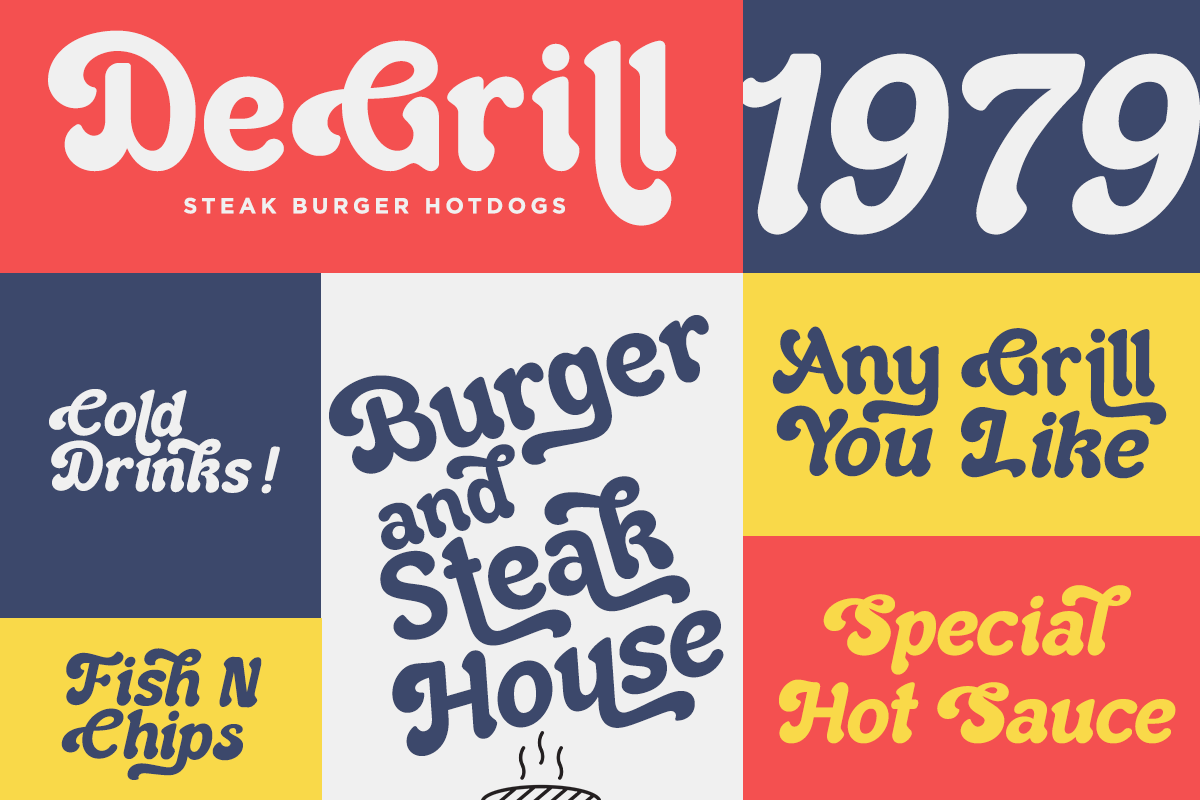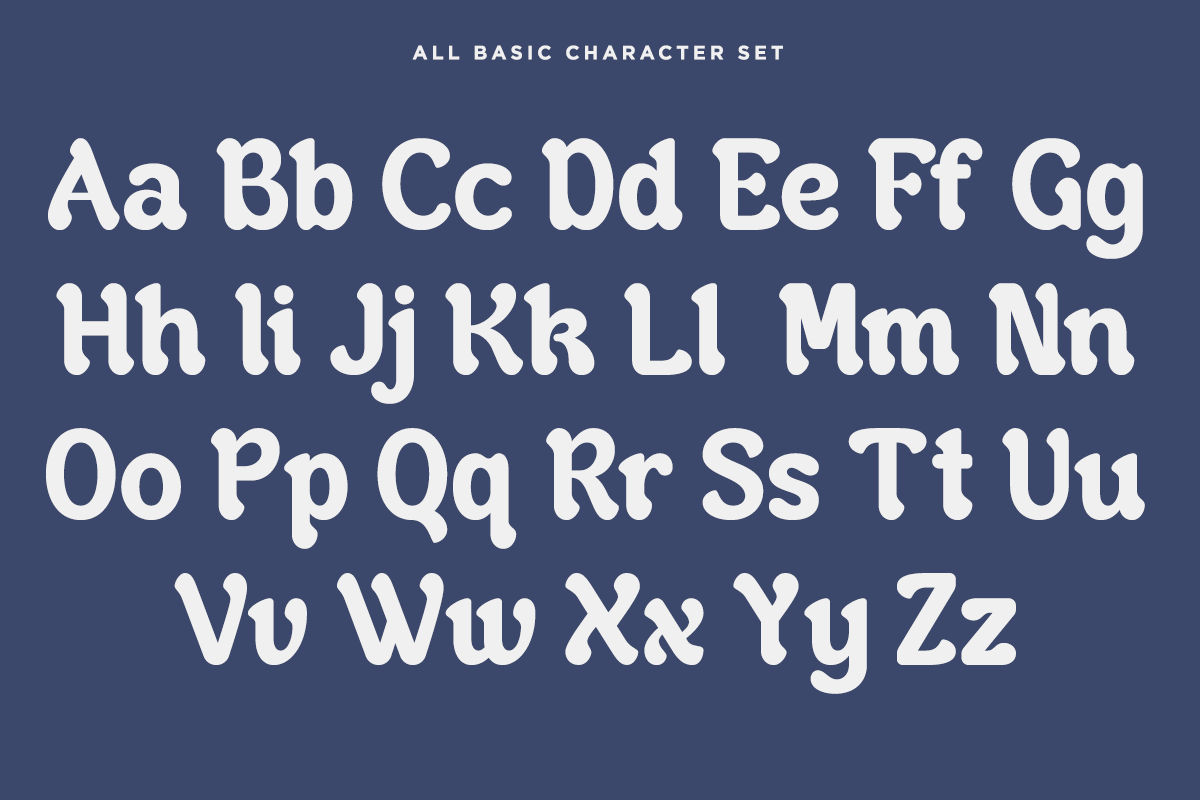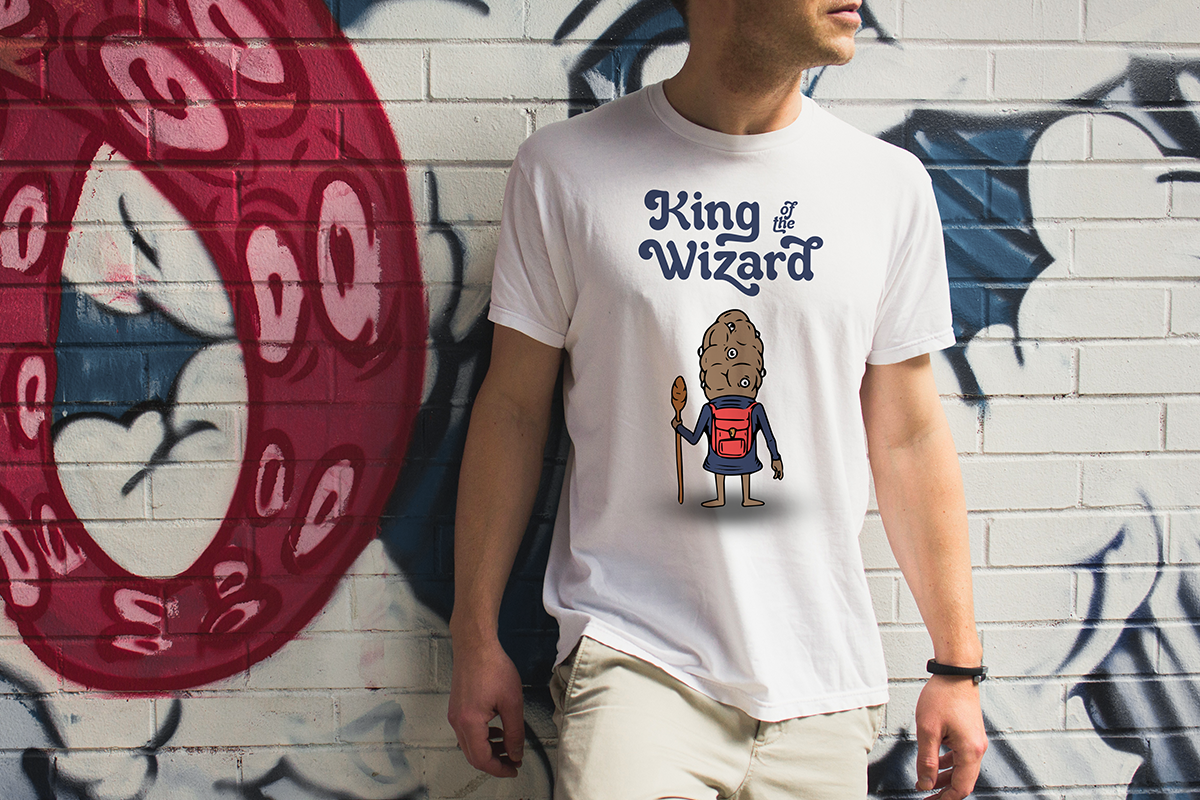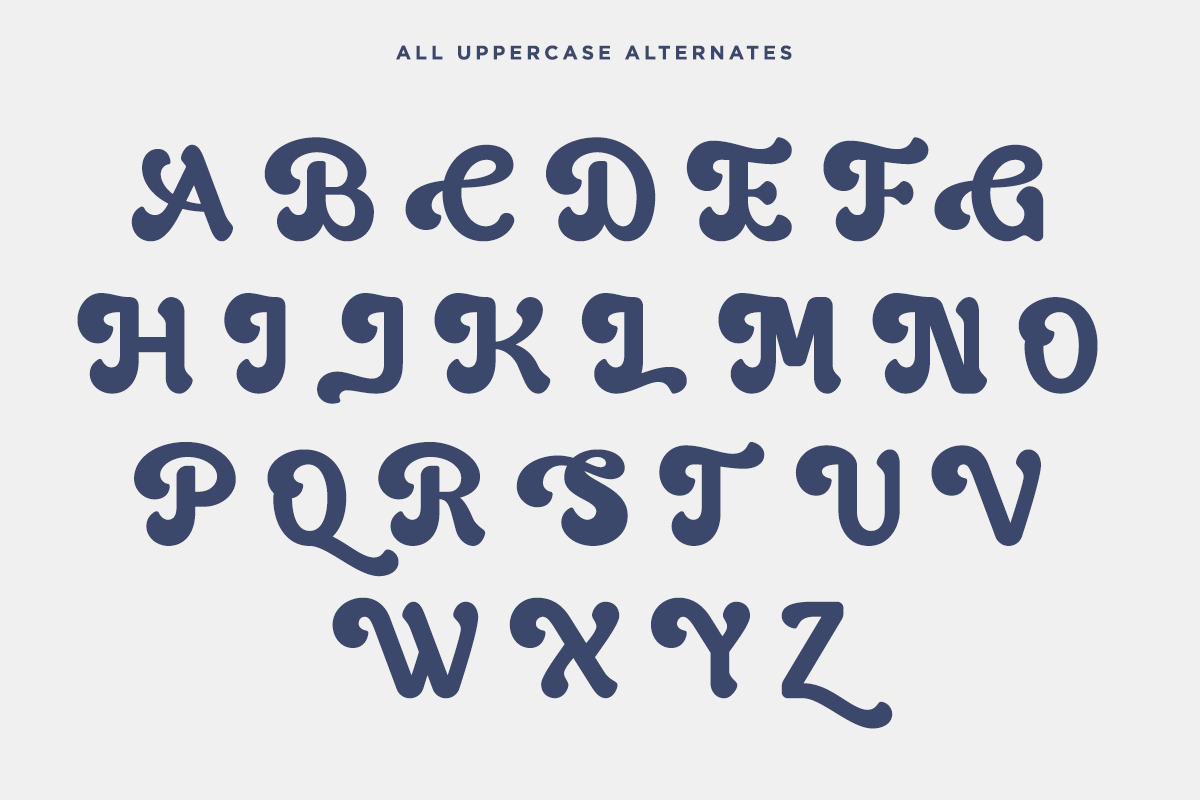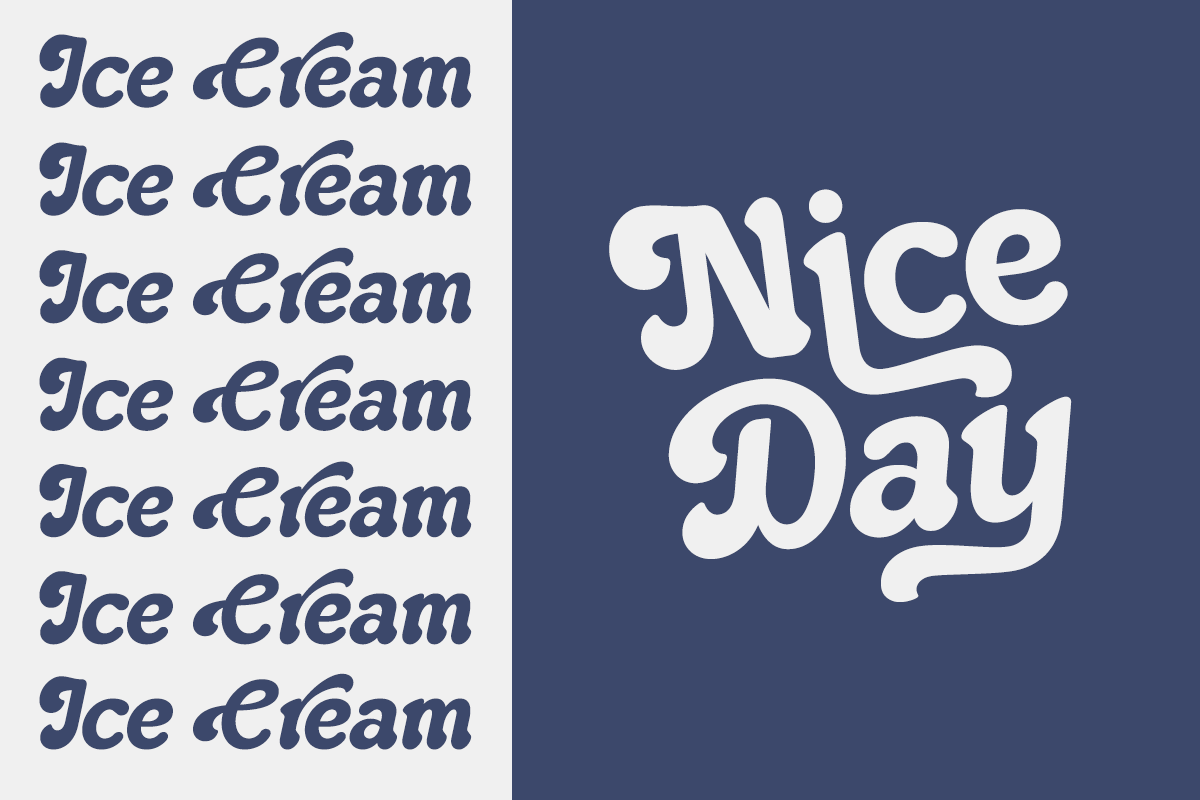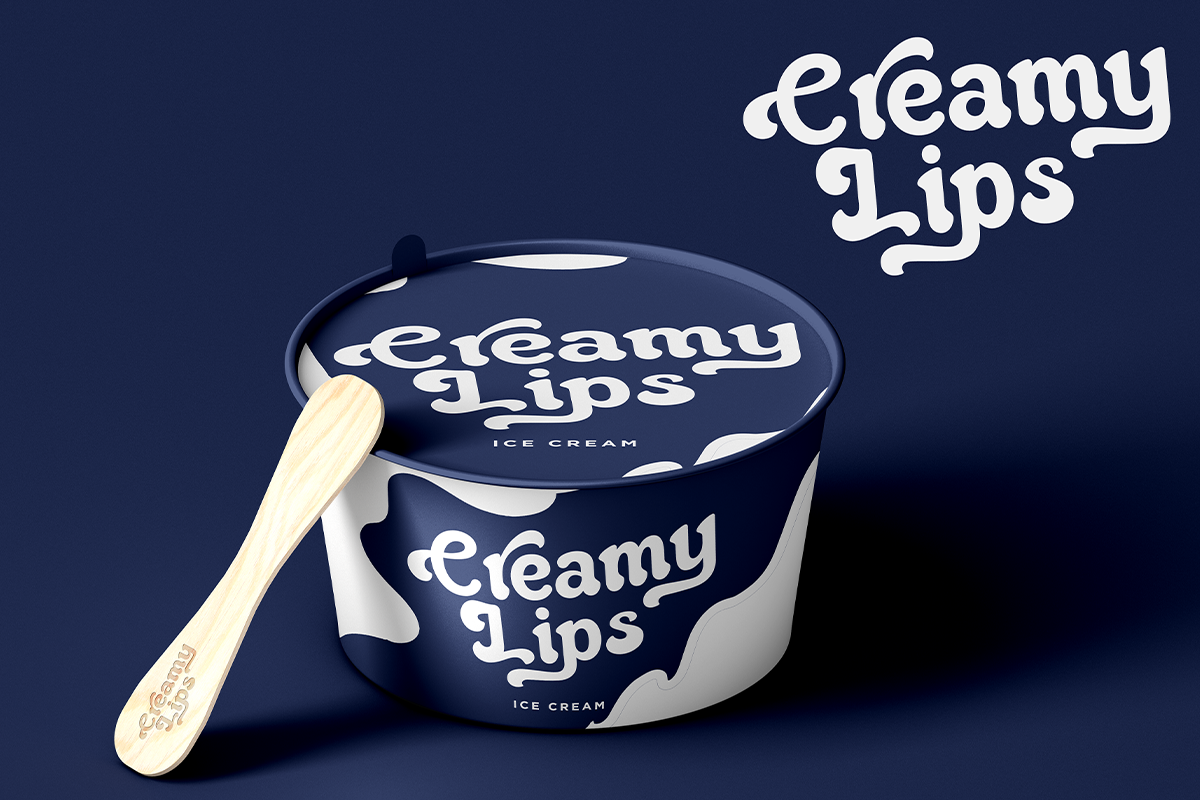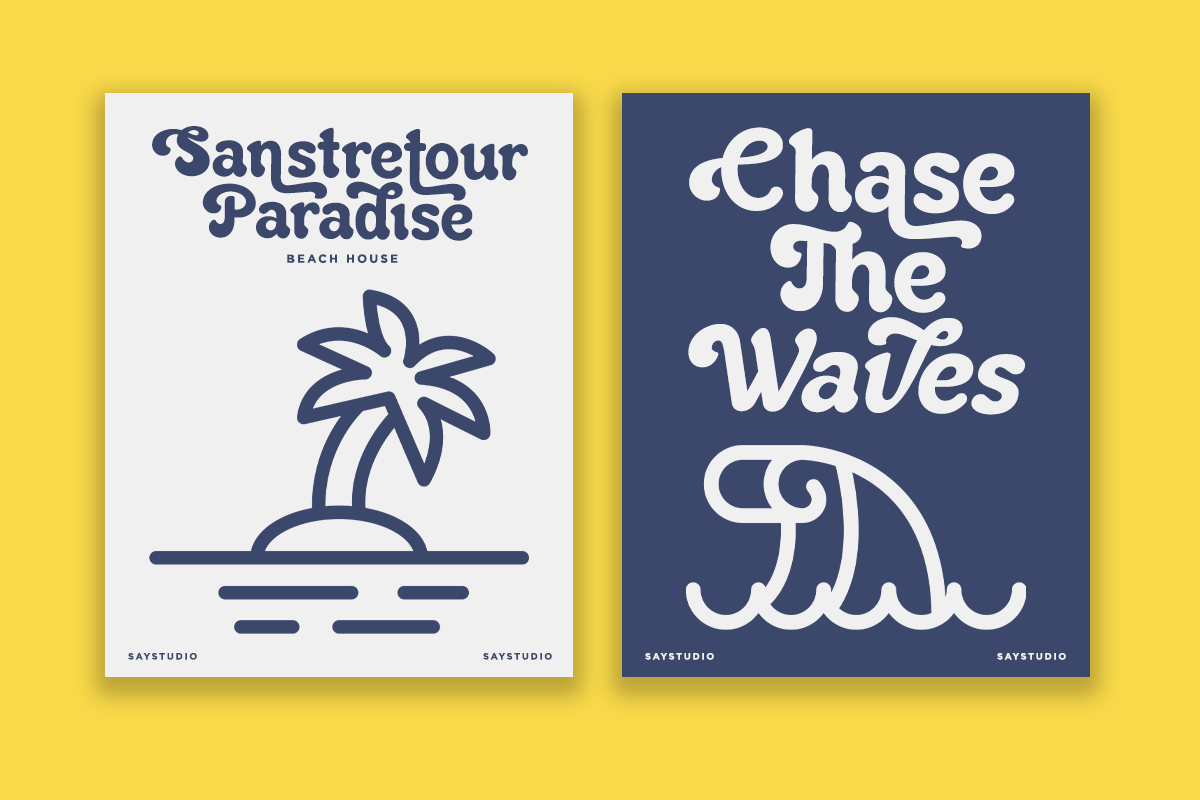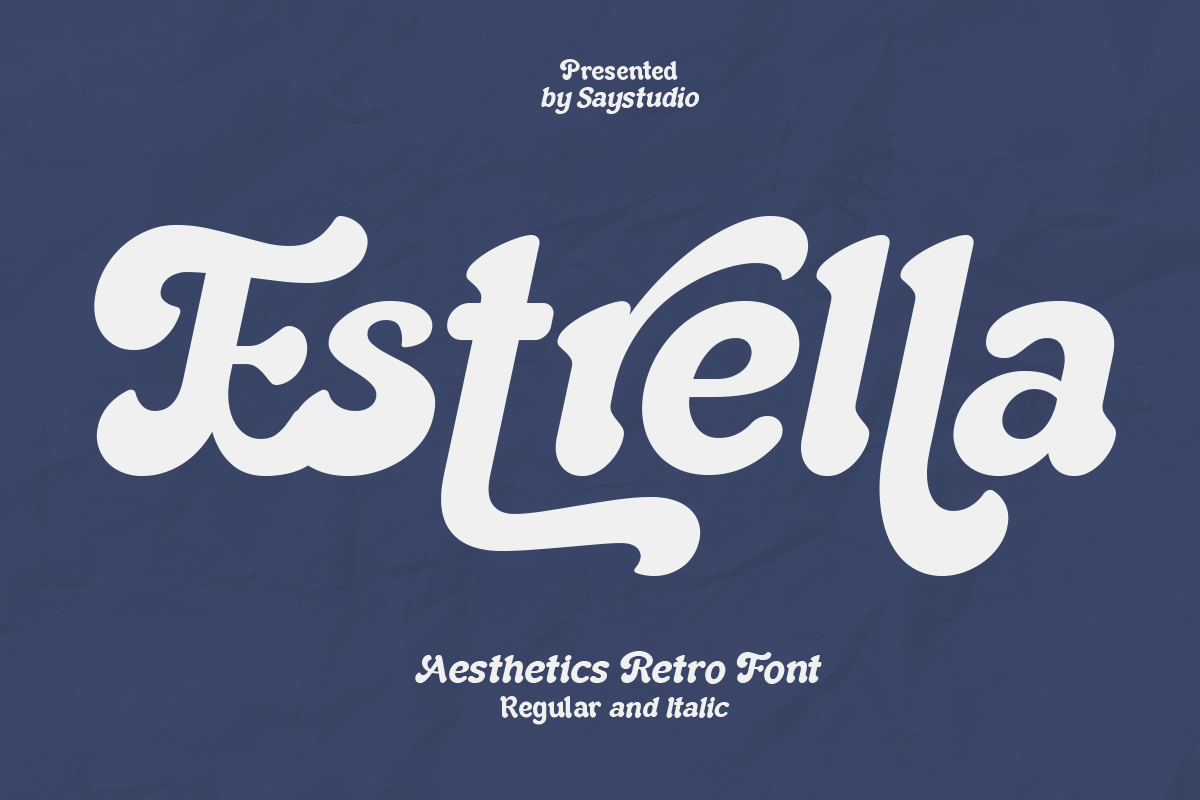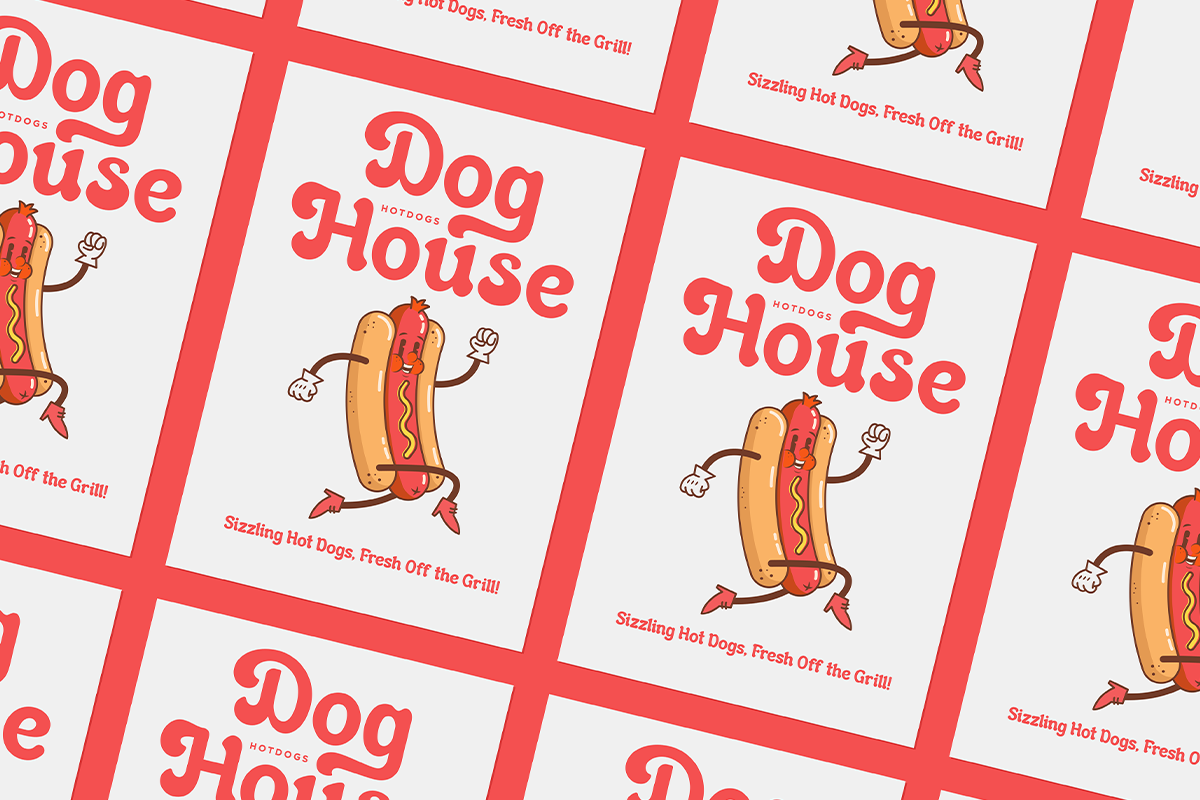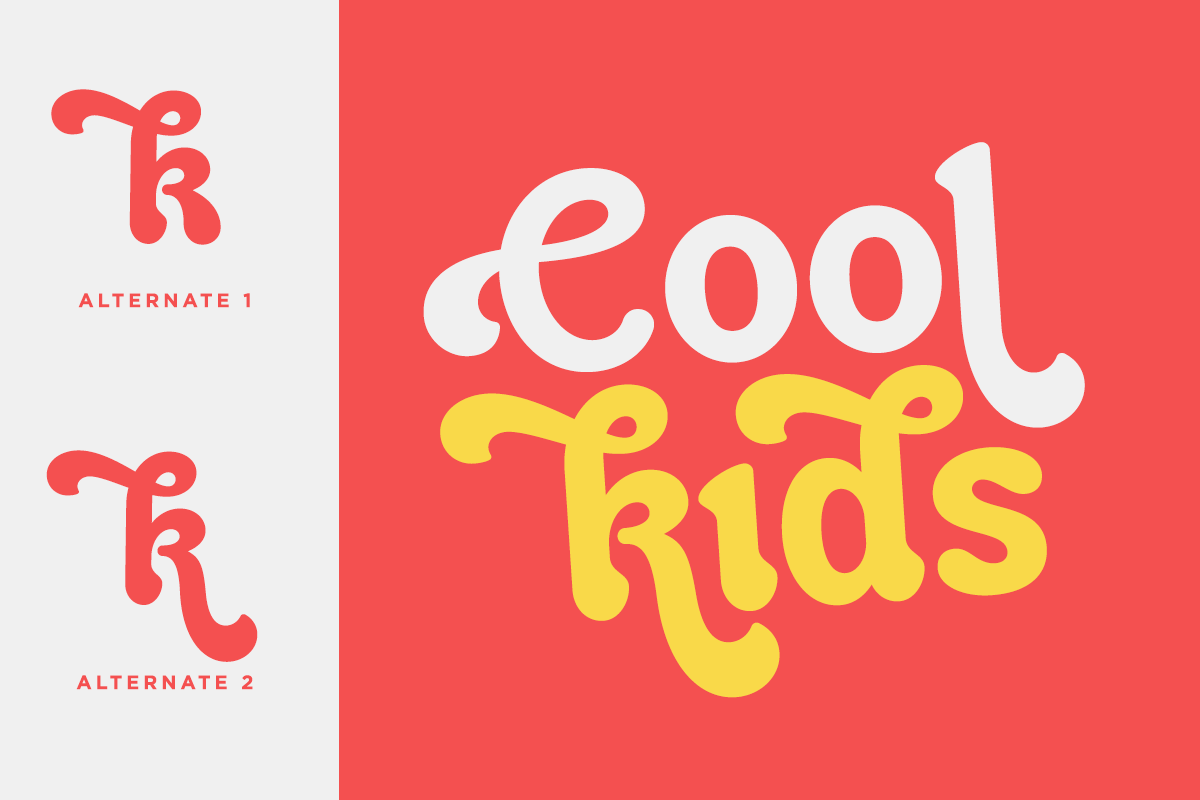
Estrella - Aesthetic Retro Font
Estrella is a Aesthetic Retro Font with bold and stylish brings a touch of vintage charm to your modern designs. With smooth curves, unique swashes, and playful letterforms, Estrella is perfect for logos, posters, branding, packaging, social media graphics, and more. Available in both Regular and Italic styles, this font is designed to elevate your creative projects with a nostalgic yet fresh aesthetic.
Whether you're working on a throwback-themed design or just want a font with personality and flair, Estrella delivers eye-catching results every time.